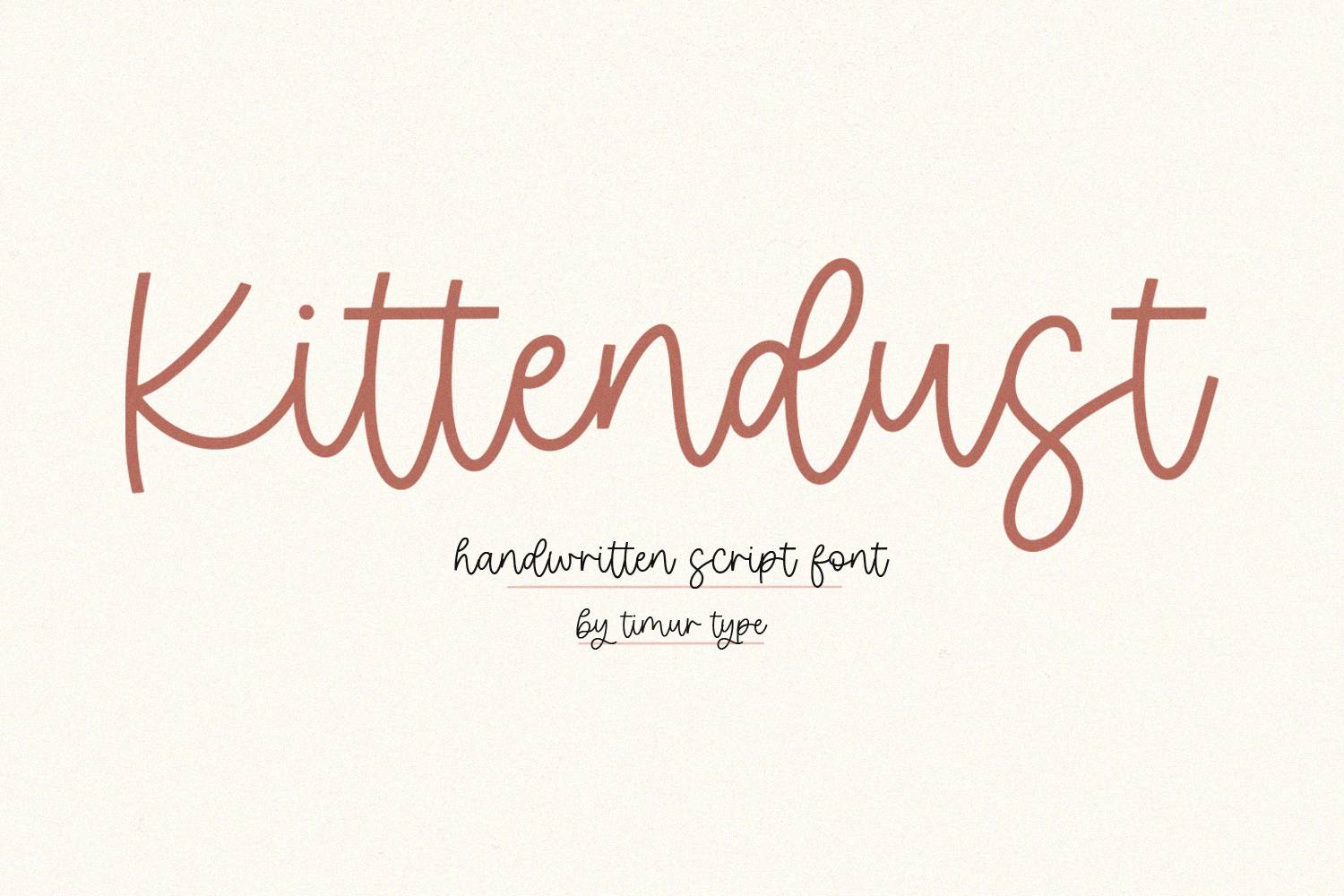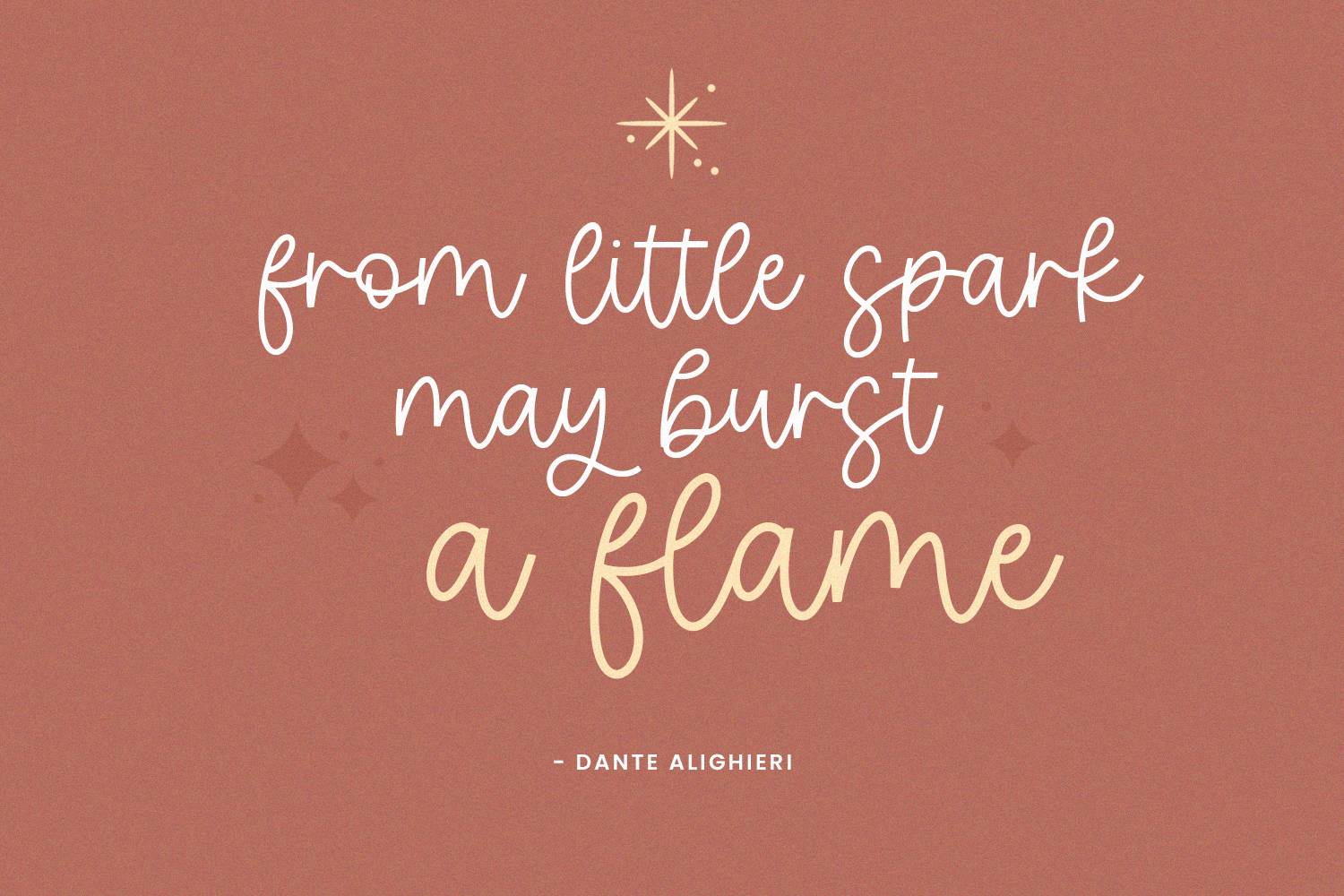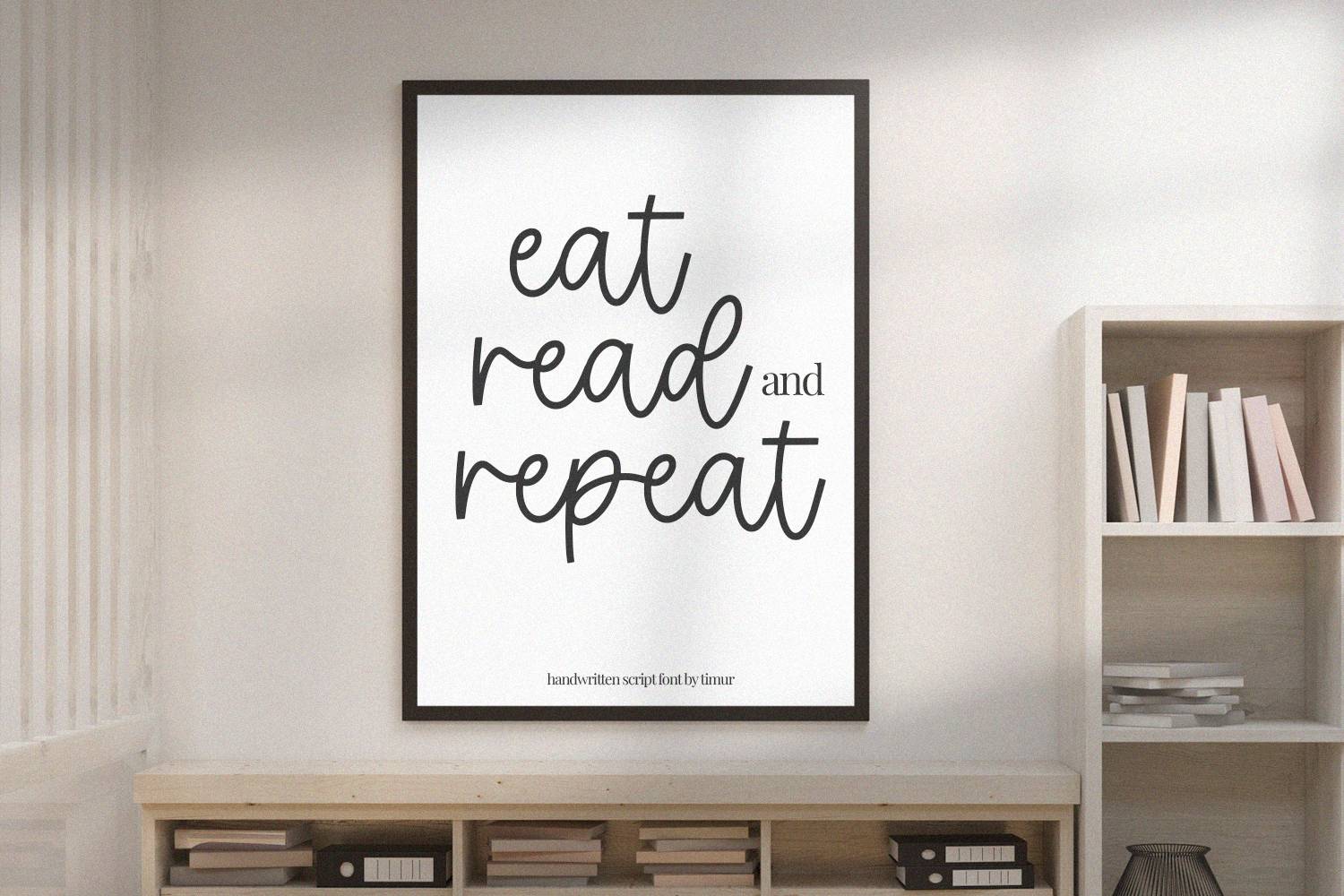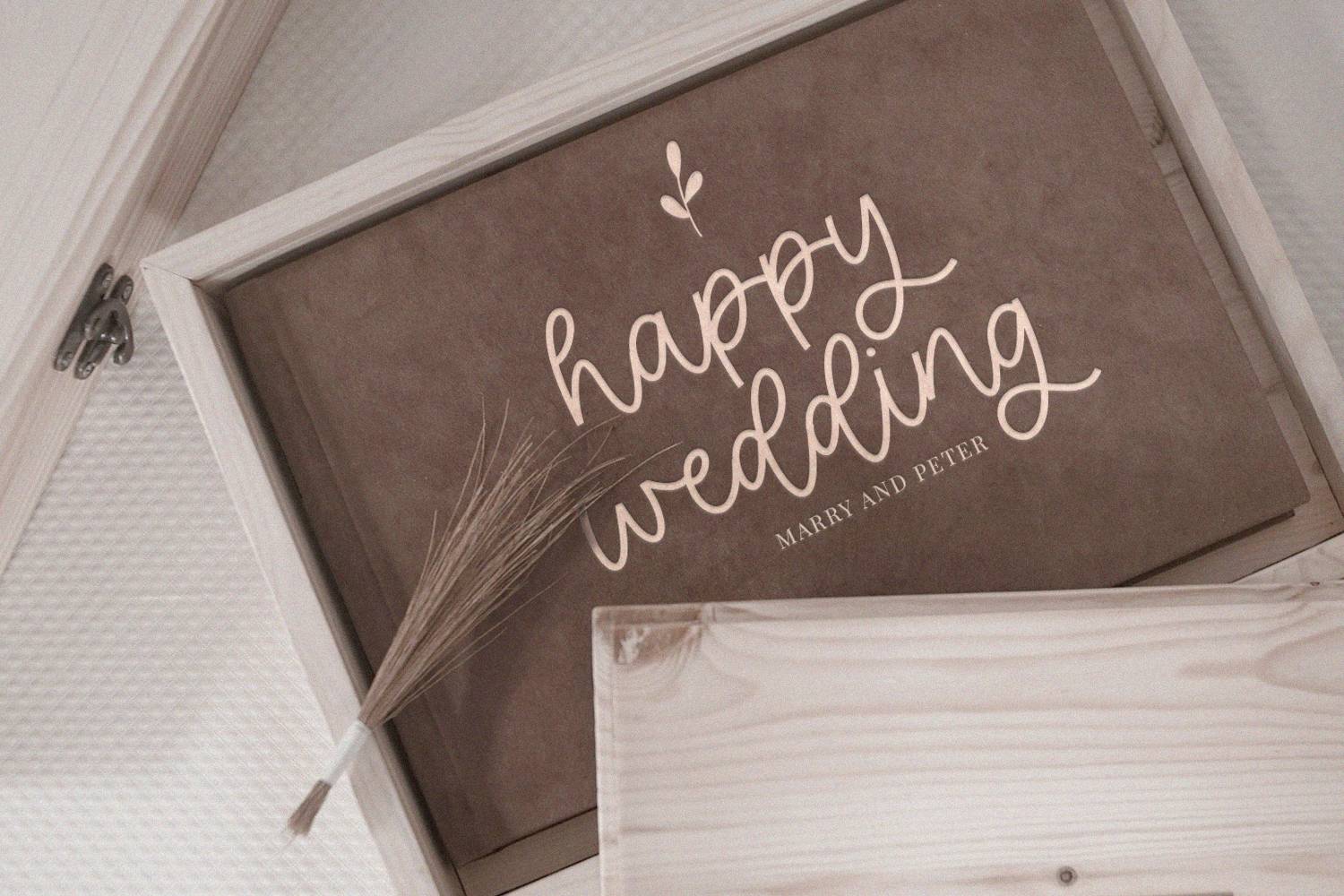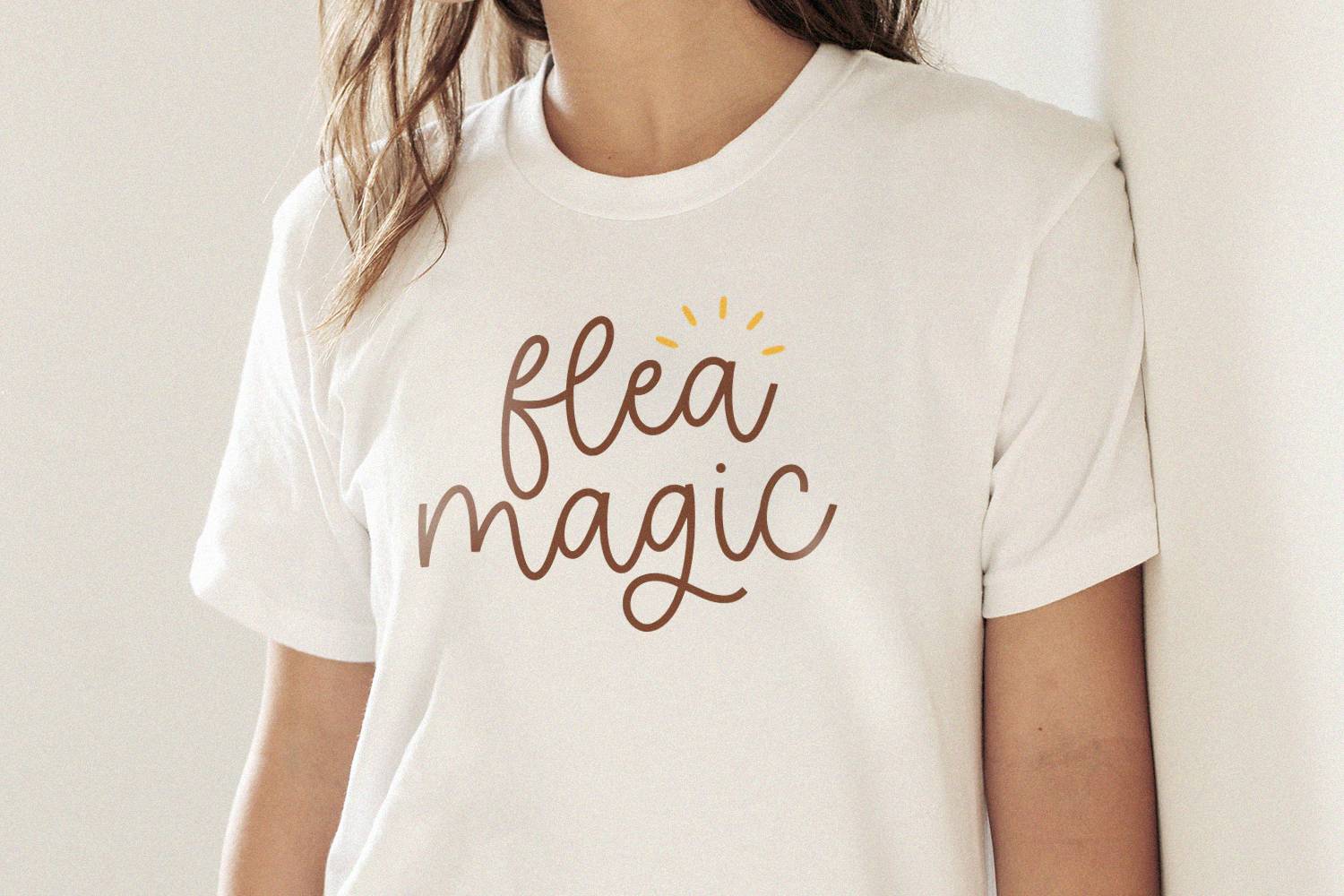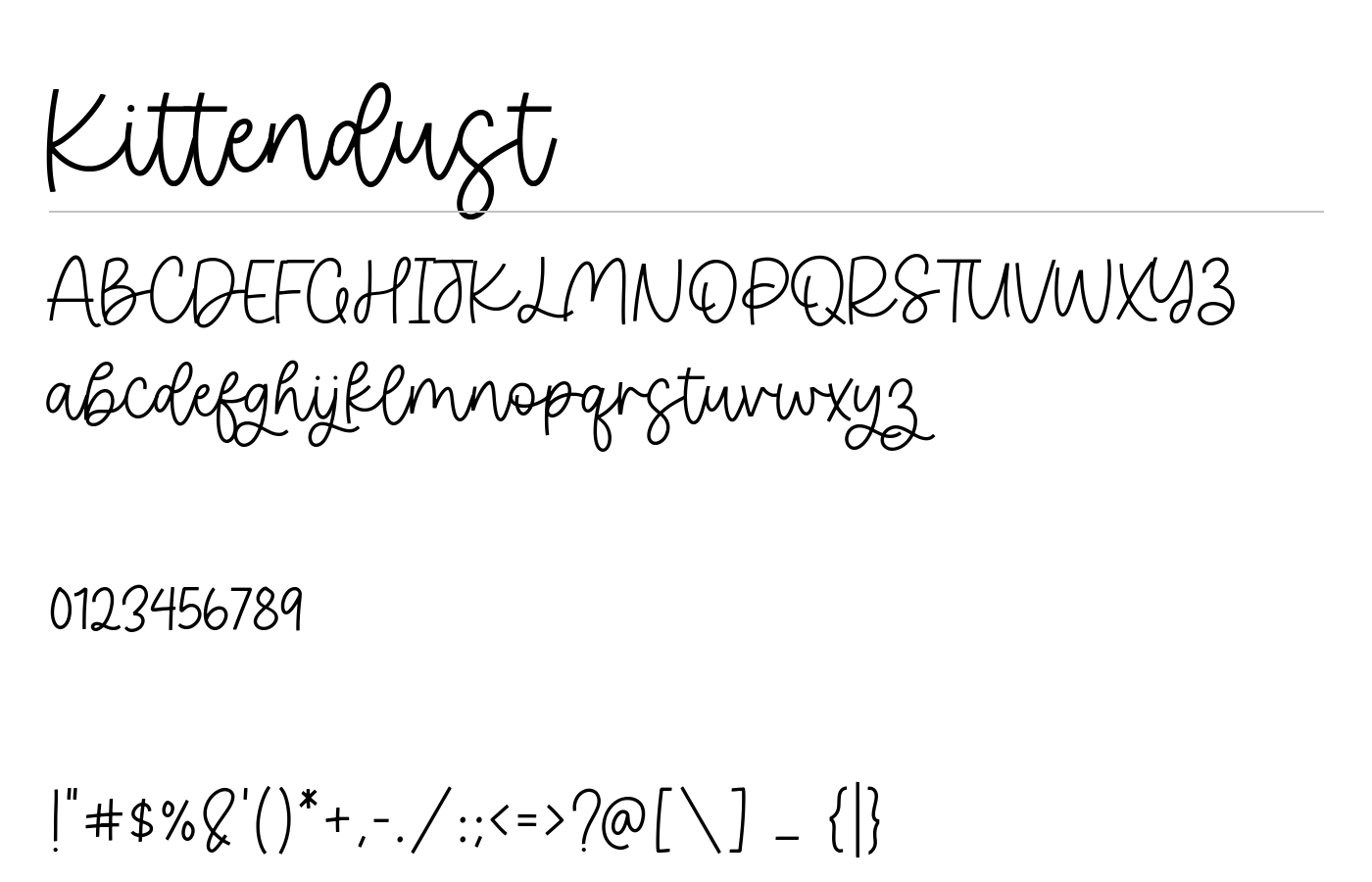
Kittendust is a playful, handwritten script font characterized by its tall, slender letterforms and smooth, flowing lines. It exudes a casual, friendly vibe with its slightly quirky curves and looped details, making it ideal for creative projects that seek a personal and approachable touch. This font works beautifully for social media graphics, branding for lifestyle or boutique businesses, and any design that benefits from a warm, inviting aesthetic.
Kittendust Font
About Kittendust Font